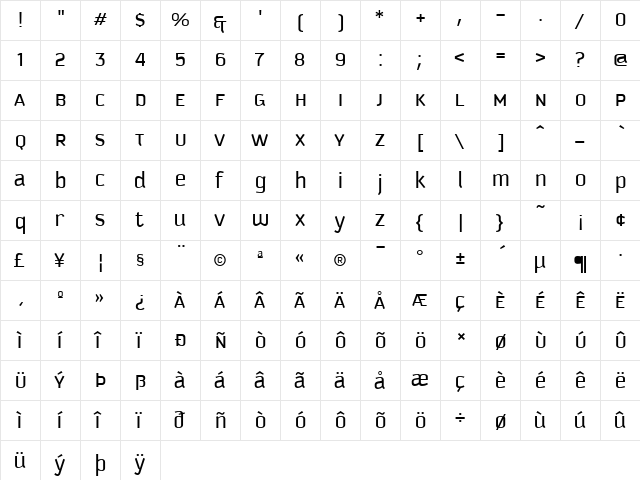
Kautiva Uni Regular
Design Context for Kautiva Uni Typeface
Kautiva Uni is a composed and adaptable typeface that performs quietly and consistently across a wide range of design contexts.